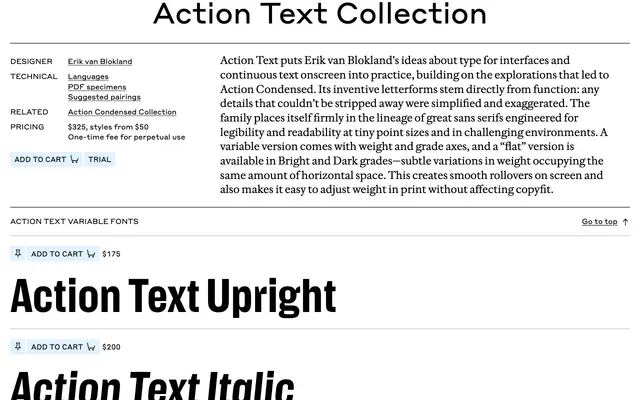
Action Text
A screen sans by Erik van Blokland for small sizes and interfaces, with variable weight and grade axes and a Flat version for clean rollovers.
A sans serif by Erik van Blokland that puts his ideas about type for interfaces and continuous text onscreen into practice, building on Action Condensed. Letterforms come from function: details that could not be stripped away were simplified and exaggerated. The variable version carries weight and grade axes, and a Flat version with Bright and Dark grades holds the same horizontal space, which keeps rollovers smooth on screen and protects copyfit when weight changes in print. Aimed at the lineage of sans serifs engineered for legibility at tiny sizes and in difficult environments.
A sans serif engineered for legibility at small sizes on screen and in challenging environments. Available as a variable font with weight and grade axes, plus a Flat version with Bright and Dark grades for smooth rollovers without changing copyfit.